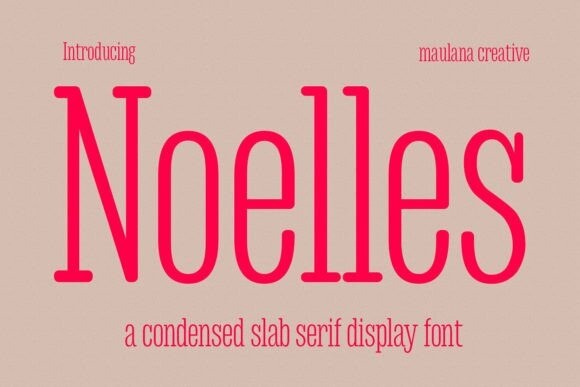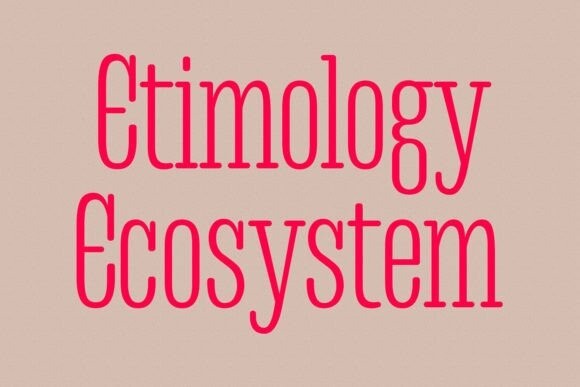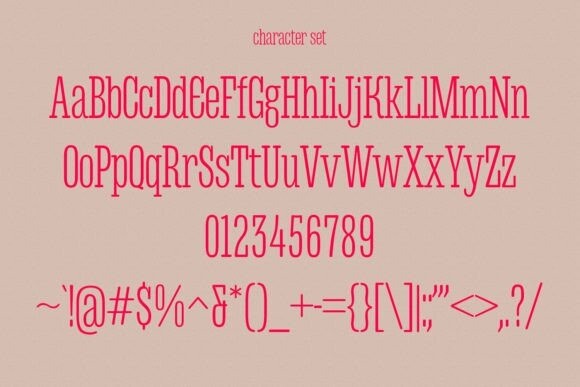
Noelles Font
Noelles Font is a classical western slab serif font. It is suitable for logo design, social media, movie titles, books titles, web design, business card, flyers and more.